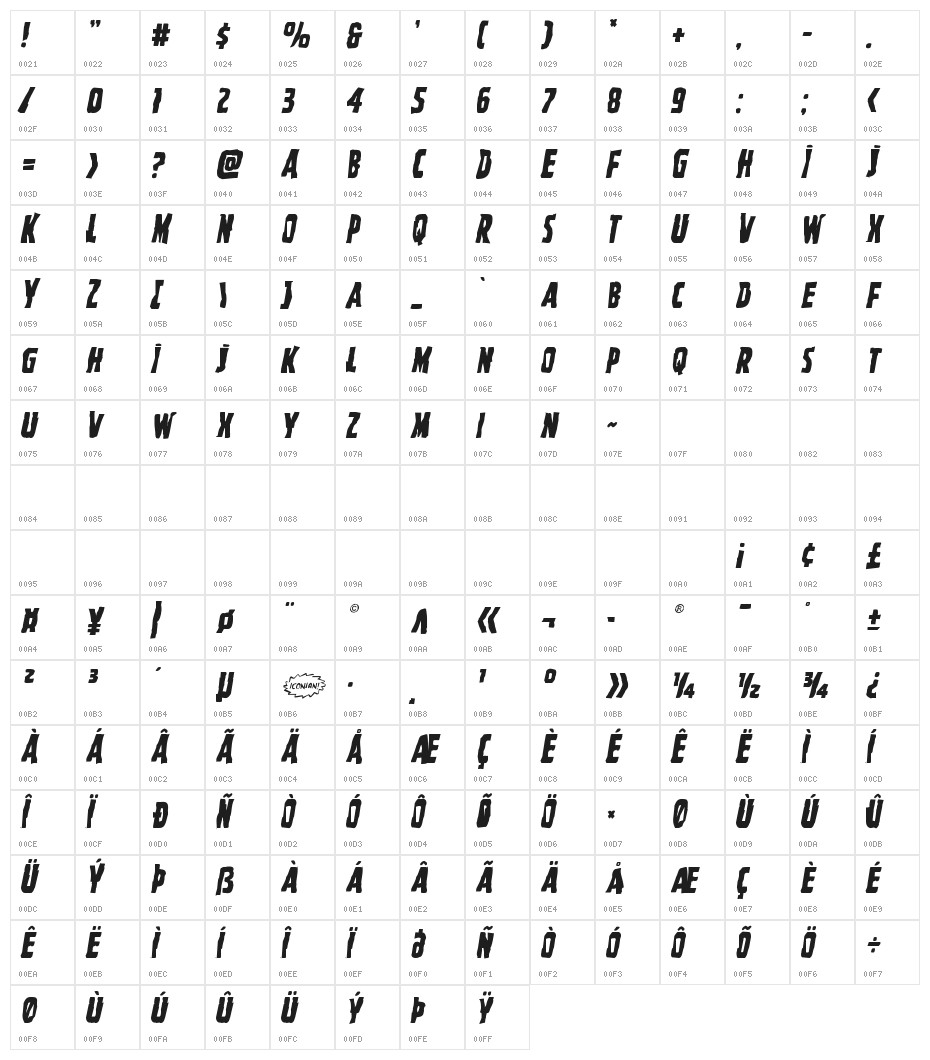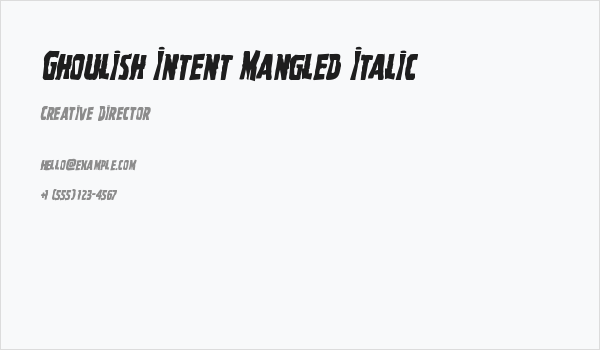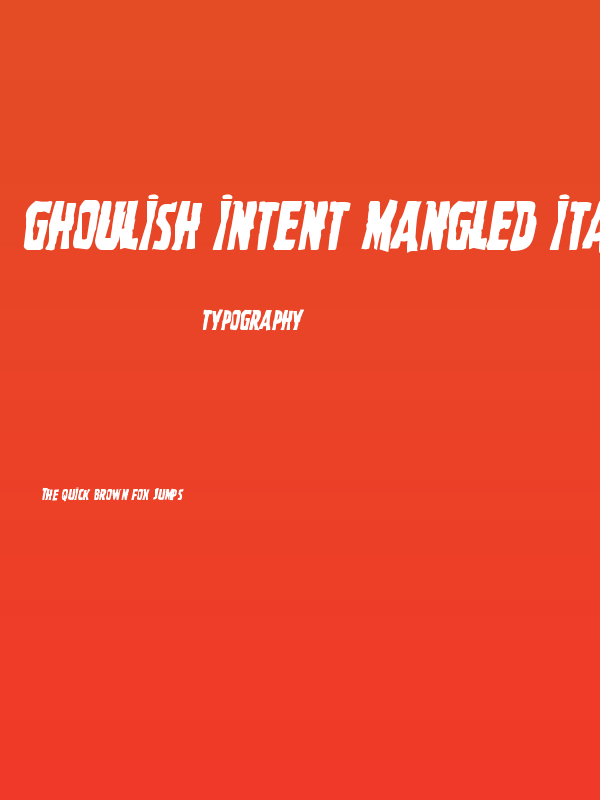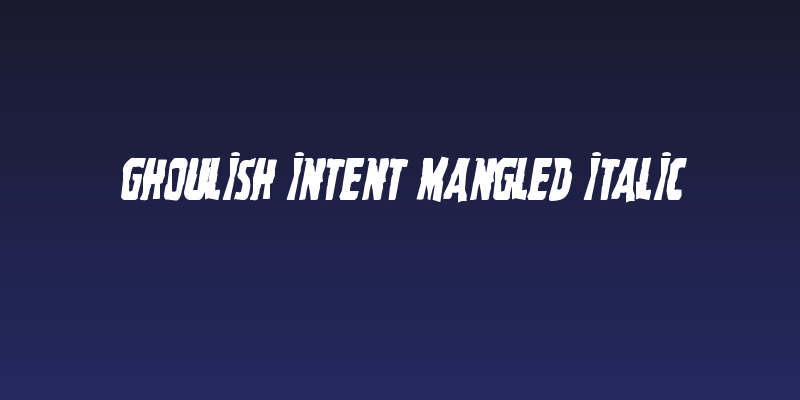
Ghoulish Intent Mangled Italic Font
Ghoulish Intent Mangled Italic Description
This font exudes a bold and edgy aesthetic, characterized by its jagged and irregular letterforms that create a sense of movement and intensity. The uppercase and lowercase letters share a consistent style, with sharp angles and a slightly distorted appearance that gives it a unique, almost chaotic look. The numbers and special characters maintain this theme, ensuring a cohesive visual identity across all glyphs. The italic slant adds to the dynamic feel, making it suitable for projects that require a dramatic and impactful typeface.
Proposed ProjectsIdeal for horror-themed designs, Halloween promotions, edgy posters, and album covers.